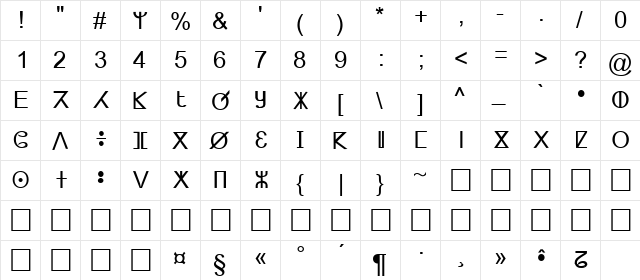
Amazigh tifinagh Masensen Regular
Design Context for Amazigh tifinagh Masensen Typeface
Amazigh tifinagh Masensen is a composed and adaptable typeface that performs quietly and consistently across a wide range of design contexts.